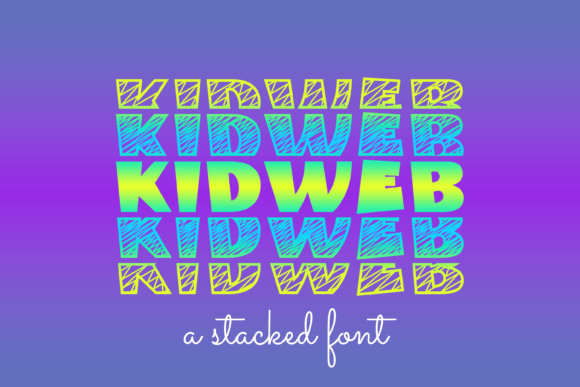
Kidweb: A Fun and Functional Font for Every Project
If you're looking for a font that adds a playful yet professional touch to your designs, Kidweb is a standout choice. This unique typeface blends whimsy with clarity, making it perfect for a wide range of creative and practical applications. Whether you're working on a personal project or a commercial design, Kidweb can elevate your work with its distinct character and versatility.
Designed with a casual, hand-drawn aesthetic, Kidweb is ideal for projects that benefit from a friendly and approachable look. Its rounded edges and slightly uneven strokes give it a humanized feel, which can make text more engaging and relatable. This makes it especially effective in branding, marketing materials, and educational content where a warm, inviting tone is essential.
What Makes Kidweb Unique?
Kidweb stands out due to its distinctive style, which is reminiscent of handwritten letters but still maintains readability. Unlike many other fonts that lean heavily into either formal or overly stylized designs, Kidweb strikes a balance between the two. It’s not too quirky to be unprofessional, nor is it too rigid to feel lifeless.
The font features a mix of uppercase and lowercase letters, with some characters appearing slightly off-center or irregular. This gives it a natural, organic feel that can add personality to any design. Its subtle imperfections are what make it so appealing—it feels like it was written by hand rather than generated by a computer.
Another key aspect of Kidweb is its adaptability. It works well in both digital and print formats, making it a flexible option for designers, educators, and business owners alike. Whether you're creating a website header, a social media post, or a poster for a local event, Kidweb can fit the bill without compromising on visual appeal.
Practical Applications of Kidweb
One of the most common uses for Kidweb is in branding and marketing. For small businesses or startups looking to establish a friendly and approachable image, this font can help convey that message effectively. It’s particularly useful for logos, product packaging, and promotional materials where a personal touch is desired.
In educational settings, Kidweb can be a great tool for teachers and content creators. It’s ideal for creating worksheets, lesson plans, and classroom signage that feel more engaging and less intimidating. The font's informal style can help make learning feel more accessible and fun, especially for younger students or those who struggle with traditional text formats.
For DIY enthusiasts and crafters, Kidweb offers a way to add a custom, handmade look to their projects. Whether you're designing a greeting card, a scrapbook layout, or a custom T-shirt, this font can bring a unique flair that sets your work apart. Its simplicity also means it pairs well with other design elements, allowing for creative experimentation without overwhelming the viewer.
Why Choose Kidweb Over Other Fonts?
When comparing Kidweb to other similar fonts, one of its main advantages is its balance of style and functionality. Many fonts that aim for a playful look can become difficult to read, especially at smaller sizes. Kidweb, however, maintains legibility even when used in body text, making it suitable for a variety of contexts.
Additionally, Kidweb is often praised for its ability to convey emotion and personality. In a world where visual communication plays such a big role, having a font that can express warmth and creativity can make a significant difference. It’s not just about looking good—it’s about connecting with your audience in a meaningful way.
Best Practices for Using Kidweb
To get the most out of Kidweb, consider how it will be used in each project. For example, if you're using it in a logo, you might want to pair it with a more structured font to create contrast and balance. This can help prevent the design from feeling too chaotic or inconsistent.
When using Kidweb in larger blocks of text, it’s important to keep the size and spacing appropriate. While it’s readable, it may not be the best choice for long paragraphs. Instead, use it for headings, titles, or short phrases where its visual appeal can shine through without causing readability issues.
Finally, don’t be afraid to experiment. Kidweb’s flexibility allows for creative expression, so try different combinations and layouts to see what works best for your specific needs. Whether you're designing a website, a marketing campaign, or a personal project, Kidweb can add a unique and memorable touch.